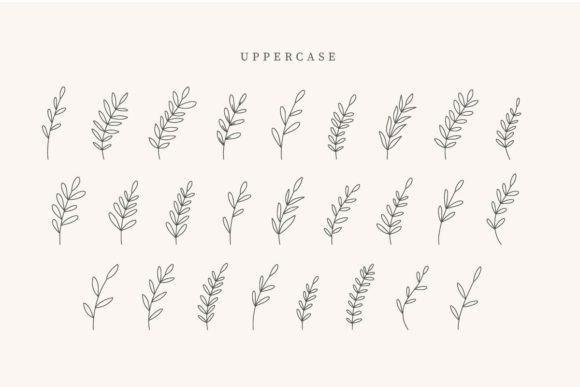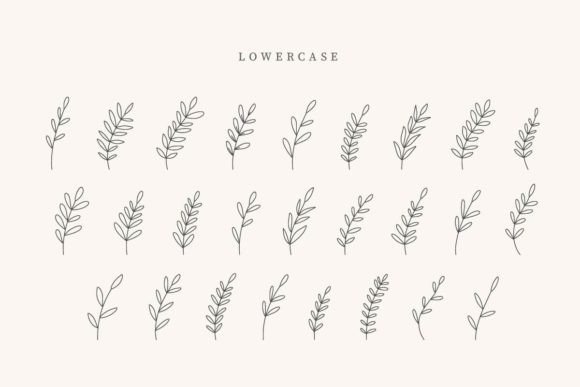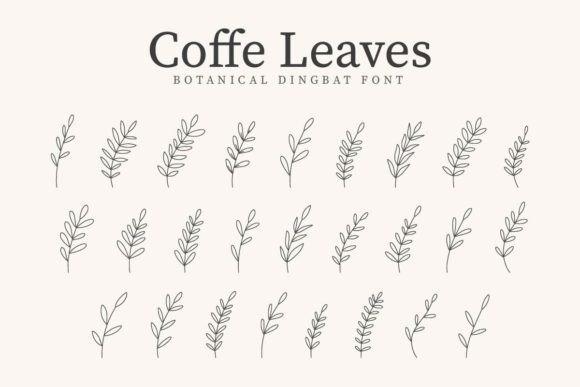
Coffe Leaves Font: Elevate Your Designs with a Touch of Botanical Elegance
Are you a designer, crafty enthusiast, or someone who loves to add a personal touch to their projects? Look no further! Introducing Coffe Leaves Font, a stunning botanical dingbat font that is sure to take your creative endeavors to the next level. In this article, we’ll dive into the world of Coffe Leaves Font, exploring its features, uses, and benefits, as well as provide you with valuable insights on how to make the most of this beautiful font.
What is Coffe Leaves Font?
Coffe Leaves Font is a unique and exquisite botanical dingbat font that features intricate coffee leaf designs. This font is perfect for anyone looking to add a touch of elegance and sophistication to their projects. Whether you’re working on wedding invitations, stickers, logos, t-shirts, posters, or any other creative endeavor, Coffe Leaves Font is sure to impress.
Key Features of Coffe Leaves Font
- Botanical Design: Coffe Leaves Font boasts beautiful coffee leaf designs that are sure to add a touch of nature and elegance to your projects.
- Dingbat Font: This font is a dingbat font, which means it’s made up of symbols and icons rather than traditional letters. This makes it perfect for creating visually appealing designs and patterns.
- Versatile: Coffe Leaves Font can be used for a wide range of projects, from wedding invitations and stickers to logos, t-shirts, and posters.
Uses of Coffe Leaves Font
Coffe Leaves Font is a versatile font that can be used for a variety of projects, including:
- Wedding Invitations: Add a touch of elegance and sophistication to your wedding invitations with Coffe Leaves Font.
- Stickers: Create beautiful stickers for your laptop, water bottle, or any other surface with this font.
- Logos: Use Coffe Leaves Font to create a unique and memorable logo for your business or brand.
- T-Shirts: Design stunning t-shirts with this font, perfect for coffee lovers and anyone who appreciates botanical designs.
- Posters: Create eye-catching posters for your business, event, or promotion with Coffe Leaves Font.
Benefits of Using Coffe Leaves Font
So, why choose Coffe Leaves Font for your projects? Here are just a few benefits:
- Unique Designs: Coffe Leaves Font offers unique and beautiful designs that will set your projects apart from the rest.
- Elegant and Sophisticated: This font adds a touch of elegance and sophistication to any project, making it perfect for special occasions and events.
- Versatile: This font can be used for a wide range of projects, making it a great addition to your font library.
Tips and Tricks for Using Coffe Leaves Font
Here are a few tips and tricks to help you make the most of Coffe Leaves Font:
- Experiment with Colors: Try pairing Coffe Leaves Font with different colors to create unique and eye-catching designs.
- Mix and Match: Combine Coffe Leaves Font with other fonts and designs to create stunning and intricate patterns.
- Use it for Branding: Use Coffe Leaves Font to create a consistent brand identity across all your marketing materials.
- Get Creative: Don’t be afraid to think outside the box and come up with unique and creative ways to use Coffe Leaves Font.
In conclusion, Coffe Leaves Font is a beautiful and versatile botanical dingbat font that is perfect for designers, crafters, and anyone who loves to add a personal touch to their projects. With its unique designs, elegance, and ease of use, this font is sure to take your creative endeavors to the next level. So why wait? Download Coffe Leaves Font today and start creating stunning designs that will leave a lasting impression!